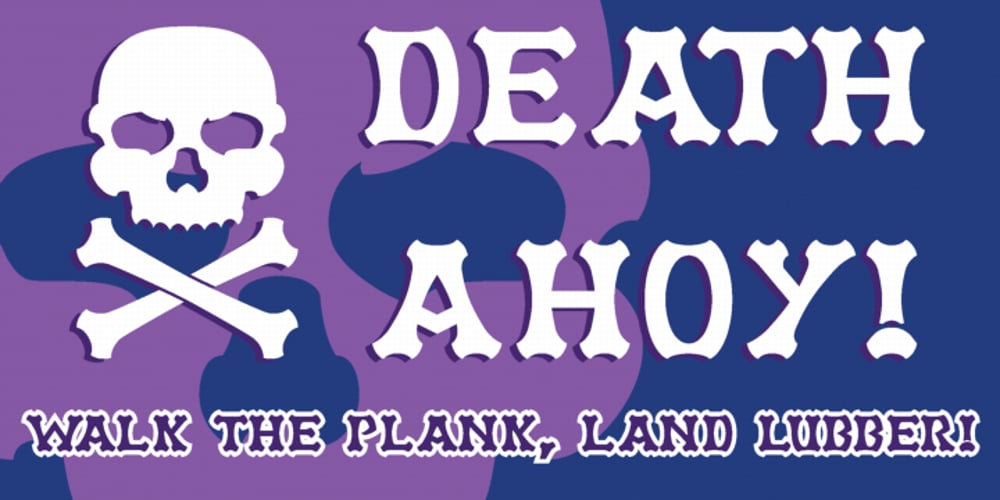
Bone Voyage
Bone Voyage font
Bone Voyage Font Family was designed by Ronnie Cruz and published by Cyberian Khatru. Bone Voyage contains 1 styles and family package options. Fonts created by comicbook letterers tend to have more creatively inspired names. That’s because comicbook letterers are trained as storytellers. The names they choose for their fonts seek to tell the story of what context that particular font is to be used in. Bone Voyage is inspired by coming up with the name first. This lead me to visualize a bold serif font where the shape of the serifs suggested bones. For more information: homepage.mac.com/baronvoncruzer